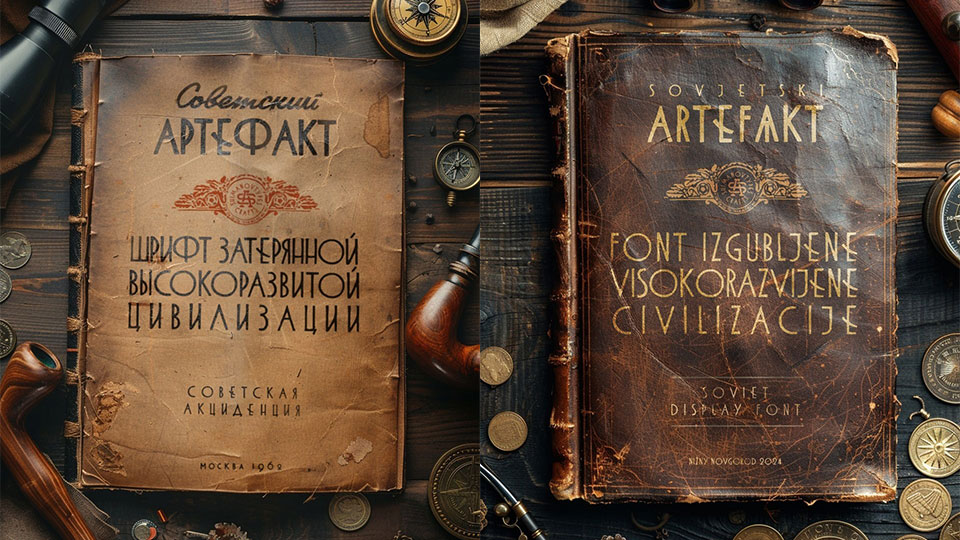
St Artefakt Font
ST-Artefakt is a display typeface restored from an old book cover from the 60s, made with deliberate distortions, as if from a bad old print. I really wanted it not to sink into oblivion along with its paper carrier.
Stylistically, this is a late version of Russian Art Deco, which turned into a Soviet architectural accident. In the 60s, it was not yet its final form (which happened in the 70s and is imprinted on a huge number of monuments and buildings of the USSR), but a transitional one, in which the excesses of forms are preserved from the bourgeois ancestor.